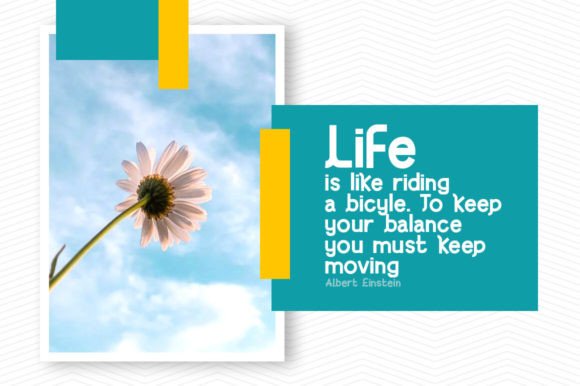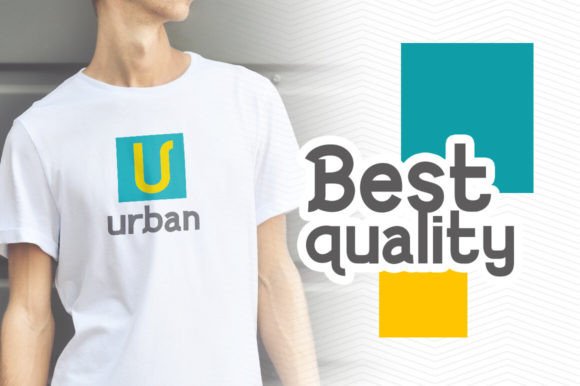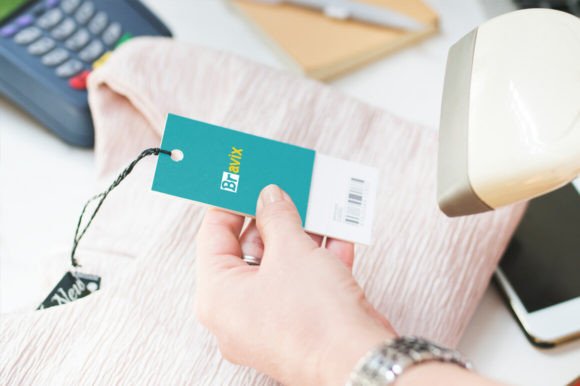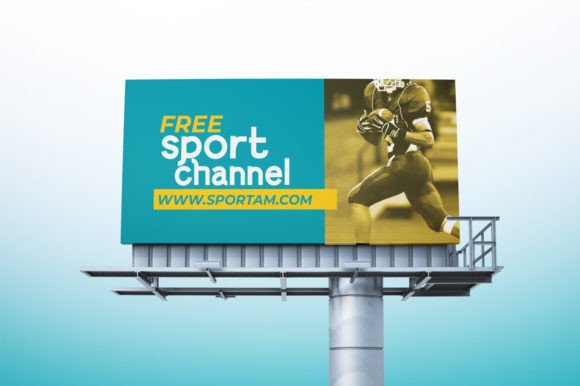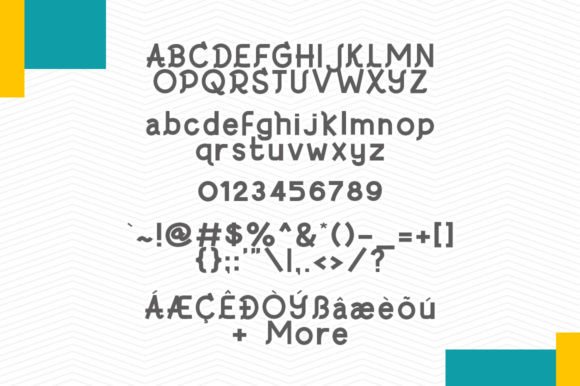
Introduction to Rato Font
Have you ever stared at a blank canvas, waiting for the perfect design to emerge? The thrill of bringing a creative project to life is exhilarating, but it’s often the little details that make all the difference. For designers, finding the right font can be a game-changer. Enter Rato Font, a clean, unique, and modern sans-serif font that’s about to revolutionize your design game.
With its smooth and light execution, Rato Font exudes elegance and sophistication, making it a perfect fit for girly branding designs. Its versatility allows it to seamlessly integrate into a wide range of creative projects, from sleek digital interfaces to beautiful print materials. And the best part? This high-quality design resource is available for free download, making it an invaluable addition to any designer’s toolkit.
- High-quality, sans-serif font suitable for creative projects and modern designs.
- Font size: 1,024 glyphs, providing a wide range of characters and symbols for creative expression.
- Unique characteristics: geometric shapes, clean lines, and a modern aesthetic make it perfect for minimalist designs and creative projects.
Honest Review: Rato Font
I recently had the chance to work with Rato Font, a highly-regarded sans-serif font that’s perfect for creative projects. Upon first glance, I was impressed by its high quality and modern design.
- Rato Font features a clean and minimalist design that’s perfect for modern creative projects.
- It has a transparent background, making it easy to use in various design contexts.
- Rato Font is highly versatile and can be used for a wide range of applications, from digital design to print materials.
- Rato Font may not be suitable for projects that require a more traditional or serif font style.
- The font’s simplicity may make it less effective for projects that require a lot of visual interest.
Overall, I was impressed by Rato Font’s high quality and versatility. It’s an excellent resource for designers looking for a modern and clean font for their creative projects. While it may not be suitable for every project, it’s definitely worth considering for those that require a simple and modern design aesthetic.
Rato Font
Rato Font is a high-quality, free design resource ideal for creative projects requiring a unique touch. With its transparent background, this font can be easily integrated into various design platforms.
Tips for Getting the Most Out of Rato Font
Experiment with different font sizes and styles to create a unique visual effect. You can also combine Rato Font with other design elements to create a cohesive look.
Rato Font is ideal for creative projects such as logos, infographics, and social media graphics. Its transparent background makes it easy to overlay on images and videos.
Alternatives to Rato Font
Montserrat is a high-quality sans-serif font designed by Julieta Ulanovsky. It’s ideal for creative projects that require a modern, clean, and minimalist design. Montserrat is a great alternative to Rato Font when you need a more versatile and widely-used font. It’s available for free download and features a transparent background, making it perfect for designing logos, headings, and body text.
Lato is a free, open-source font designed by Łukasz Dziedzic. It’s a popular design resource for creative projects, offering a wide range of styles and weights. Lato is similar to Rato Font in terms of its modern and clean design, but it has a more rounded and friendly feel. It’s perfect for designing websites, mobile apps, and other digital products that require a high-quality and visually appealing font.
Open Sans is a highly legible sans-serif font designed by Steve Matteson. It’s a great alternative to Rato Font when you need a font that’s easy to read and understand. Open Sans is available for free download and features a transparent background, making it perfect for designing body text, headings, and other content that requires high readability. It’s also widely used in many digital products, including websites and mobile apps.